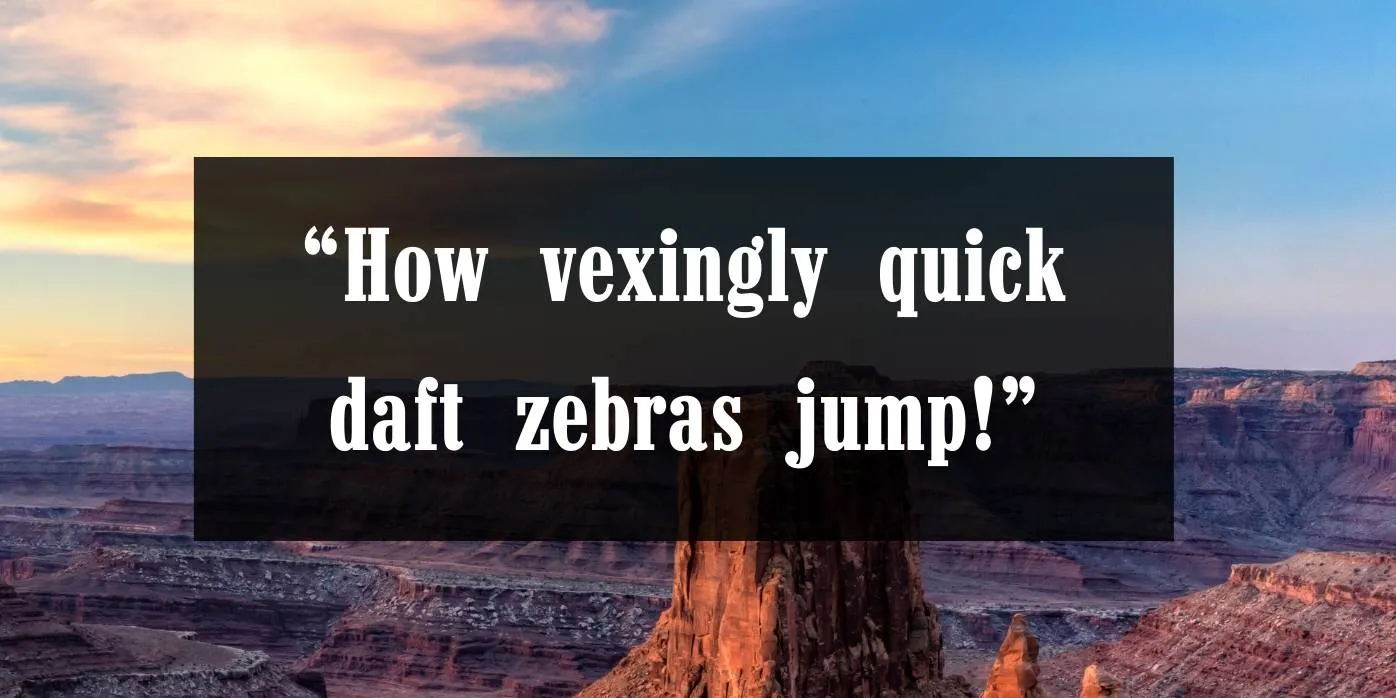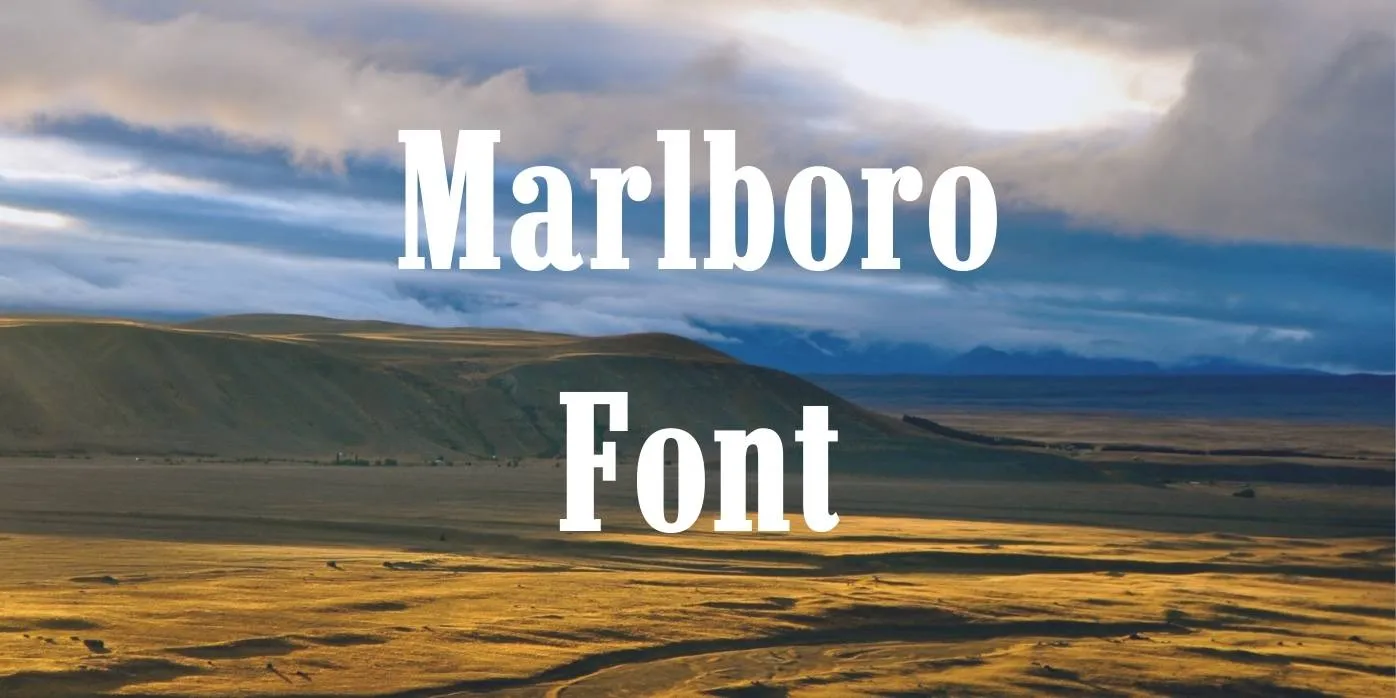
Marlboro Font
Here, we present a new stylish typeface which is famous with the name Marlboro Font. This awesome typeface was developed by IMSI Mastersfonts. It belongs to the Slab Serif typeface. It is available in regular and italic styles.
You can use this free font for various purposes like headlines, logos, posters, and much more. Marlboro Font features strong straight lines which give it a masculine look. The letters are thick which makes them easily readable even from a distance. This quality makes this font ideal for headlines and other display purposes.
It is best for CSS and SVG. Courier New Font is alternative to this cute font family. The regular style has a unique ‘R’ with two vertical bars while the italic style slants to the right. It is a great choice for any project that needs a touch of class and sophistication.